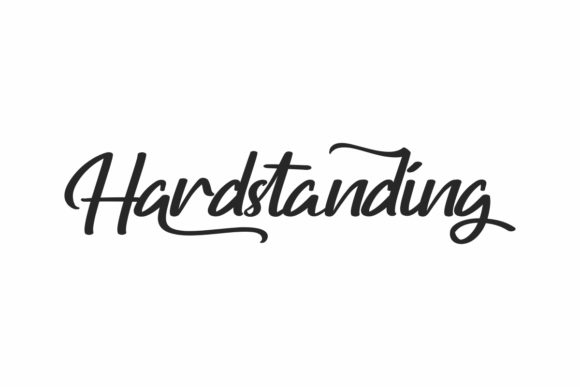
Journey into the realm of visual enchantment with Hardstanding, a captivating script font that dances across the page with grace and allure. Its delicate strokes and elegant curves evoke a sense of handwritten intimacy, inviting you to add a personal touch to your creative endeavors.
Immerse yourself in the boundless possibilities of Hardstanding, the ultimate font for expressing your individuality. Whether you're a seasoned designer seeking to elevate your projects or a passionate crafter yearning for a unique touch, Hardstanding is your perfect companion. Unleash your imagination and let your words and designs bloom with newfound charm.
With Hardstanding's intuitive design, you'll find it a breeze to navigate its extensive character set, including a treasure trove of glyphs and swashes that unlock a world of creative possibilities. Effortlessly weave together mesmerizing compositions that capture attention and leave an indelible mark on your audience.
Hardstanding's versatility knows no bounds, making it an indispensable tool for a myriad of projects. Craft spellbinding logos that exude sophistication, design enchanting invitations that ignite hearts, or create breathtaking social media posts that command attention. Let Hardstanding be your muse as you transform your creative visions into tangible masterpieces.